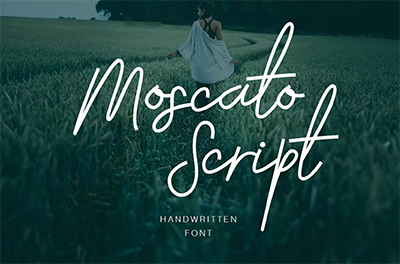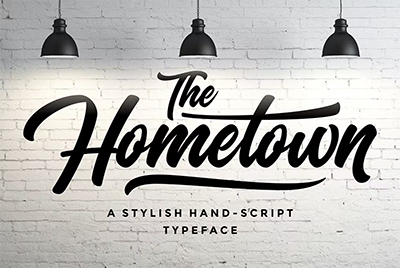
42 Best Cricut Cursive Fonts (Stylish Script Fonts to Download)
Looking for the best Cricut cursive fonts for your next project? Check out this Cricut script font collection for inspiration. We’ll focus on Cricut cursive fonts that connect. If you’re not sure about how connecting cursive letters in Cricut works, we’ll point you in the right direction for that too.
So we'll take a look at some good Cricut cursive font selections you can download today, like these ones:
What Is a Cricut, and How Do I Work With Cricut Fonts?
A Cricut machine is used for cutting out creative projects. Cricut fonts are used in Cricut Design Space, the design software used to assemble and make your Cricut projects.
Learn About Connecting Cursive Letters in Cricut
Looking for the Best Cricut Script Fonts?
Finding the best calligraphy fonts for Cricut can be a challenge, especially if you’re looking for beautiful cursive fonts on Cricut for business or sale purposes. But even if you’re looking for nice cursive fonts on Cricut for your personal projects, you likely want high-quality, professional options to make your designs shine.
1. Shelva Cricut Script Font (OTF, TTF)
Shelva makes nice cursive fonts for Cricut for your projects. The swooping curves give a personal vibe, and its bold shapes are easy to work with and cut out. It's a really cute cursive font for Cricut.
2. Sweet Buttermilk Cricut Script Font (OTF, TTF)
This sweet buttermilk typeface makes for a great cursive Cricut font. The curvy font comes with a whole family of related fonts, making it a versatile Cricut font cursive choice for your projects.
3. Saltillo Cricut Script Fonts (OTF, TTF)
Check out this stylish cursive font Cricut option that can be used for your next project. The long swooping lines make the curvy font easy to pull apart.
4. Eiffell Connected Cursive Font (OTF, TTF)
Bring a lovely whimsical flair to your projects with Eiffell Connected Cursive Font. As an added benefit, this cute cursive font for Cricut comes with bonus watercolor textures.
5. Hello Honey Cricut Script Font (OTF, TTF)
This cheerful Cricut cursive font is sure to put a smile on your face. The bold shapes make the Cricut calligraphy font perfect for when you need your words to grab attention.
6. Clarkson Connected Cursive Font (OTF, TTF)
Give a vintage flair to your designs with Clarkson Connected Cursive Font. The sweeping lines and serif peaks give it a classic vibe, which makes it one of the best cursive fonts for Cricut.
7. Wildlove Script Font (OTF, TTF, WOFF)
Check out this Cricut script font for when you are looking for a natural look. If you need cute Cricut fonts, try this out on a project that needs a rustic and natural look.
8. Hucklebuck Cute Cricut Script Font (OTF, TTF)
Here's another vintage-inspired cursive font for Cricut. The cursive script, with its classic serifs, really gives off some classic vibes while feeling personal and homey. Try one of these fancy Cricut fonts on your next wood project.
9. Bouquet Cricut Cursive Font (OTF)
This bold, swooping, partially cursive font really grabs your attention. Try out this versatile cursive font for Cricut on a wedding invitation or birthday card.
10. Medinah Script Font (OTF, TTF)
Medinah is a fun, bold Cricut font that's perfect as the centerpiece of a design. Try the cursive font for Cricut out on a T-shirt design or on the title page of a scrapbook.